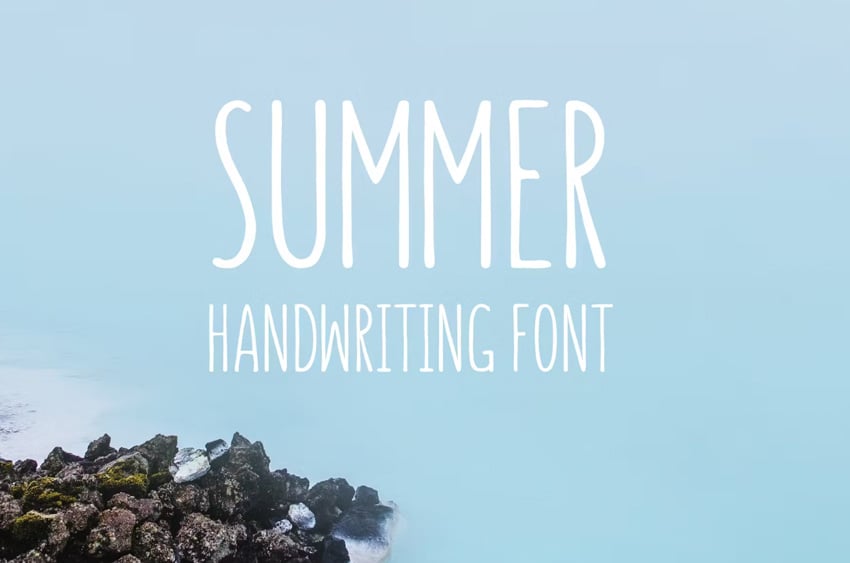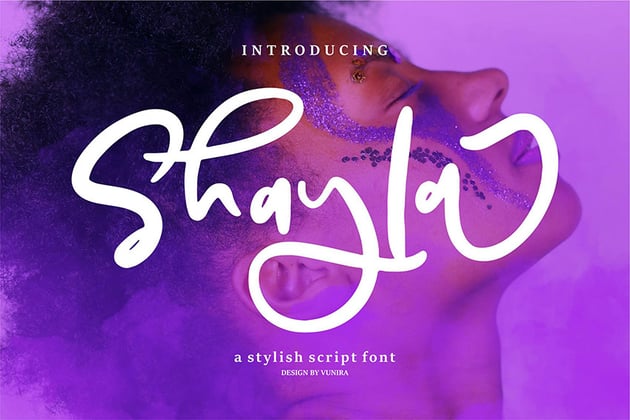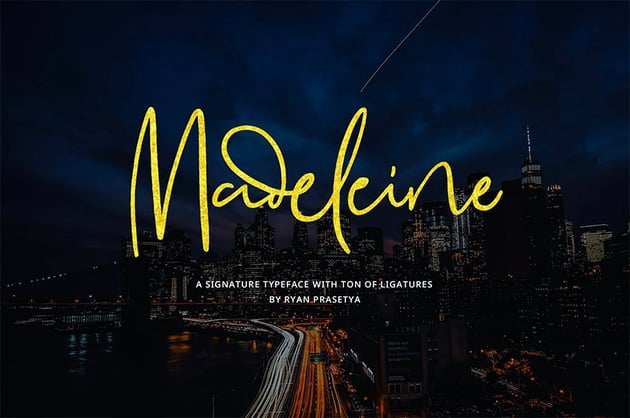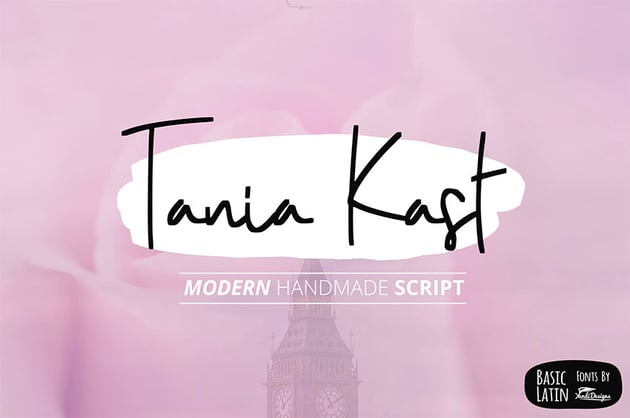
15 Best Handwriting Fonts (Fonts That Look Like Handwriting)
Looking for the best handwriting font for your next design project? This collection is sure to inspire you. Download all kinds of different fonts for handwriting today.
15 Fonts That Look Handwriting to Download Now
1. Polkawars Hand Writing Sans (OTF)
Polkawars is a fresh handwriting script font that likes to keep it casual. If you're wondering how Jasmine in cursive looks, try it with this one. The lettering has a carefree air about it, yet it's neat enough to be read by all. This handwritten typeface features a full set of glyphs, including symbols and alternates.
This font is a great choice for:
- Fonts that look like handwriting can be perfect for evoking a personal, friendly feeling in your designs.
- Fonts that look handwritten can also work well for titles or logos, especially if you want to make an association with something organic or handmade—or if you want to make a personal connection.
- This font is particularly strong at larger sizes as it's rather decorative. When used as display type, it could be a creative way to command attention.
Keep an eye out for:
- This font could scale well, but may not be the best handwriting font for long passages of text, like body copy. If you have a lot of text, consider pairing this font with a neutral supplement.
- That said, if you want to pair this font with another font, make sure it doesn't compete. Something simple could be a strong complement.
2. Shayla | A Stylish Script Font (OTF, TTF)
If you're looking for the best handwriting fonts for your marketing project, check out Shayla. It's a versatile handwritten script that can fit on shirts, flyers, and a whole lot more. The messy handwriting font also works on PC and Mac computers, so you won't have to worry about compatibility.
This font is a great choice for:
- Different handwriting fonts can convey different emotions—and this one is bouncy, fun, and full of energy. It's a great choice if you're looking to command attention.
- Try this font for logo design, titles, headlines, and other points of emphasis in your design. It would be great paired with other graphical elements.
Keep an eye out for:
- It would likely be strong to use this font for key copy, like names or phrases. Too much copy could be overwhelming due to the decorative nature of this type.
- Notice how well this font pairs with a clean, simple serif font, in the example above. Consider a strong, supplemental pair like this one, if you need a secondary font.
3. Heartland (OTF, TTF)
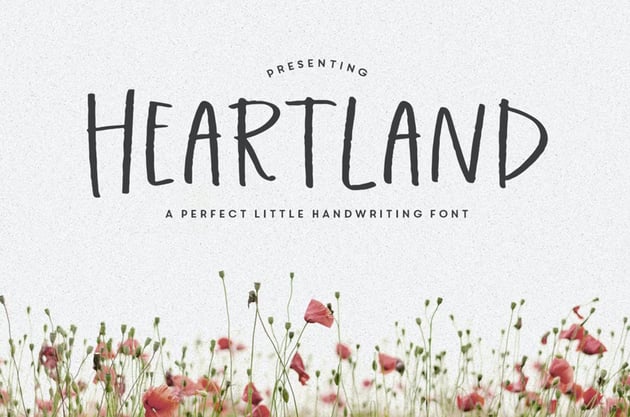
But maybe you prefer different fonts for handwriting. Relaxed, easy handwriting fonts like this one have such a fun, casual vibe to them. This font that looks like handwriting could easily fit in on handmade goods or even a friendly invitation.
This font is a great choice for:
- Fonts like handwriting lettering can be an excellent way to create an organic, personal feeling. It looks as if someone wrote this by hand—our eyes catch that and make that association.
- Imagine this font that looks like handwriting on the front of a cookbook. It could evoke a personal connection with the author because it feels quite human.
- This lettering is rather clean and consistent, so it could work well at both larger and smaller sizes.
Keep an eye out for:
- While this font could scale down well, it still might not have the strongest readability as body copy. If you have a lot of text, you may want to consider a secondary, complementary font.
- Remember, the best handwriting fonts communicate in a way that resonates with your project. This typeface might not work for something like legal branding because of its informal nature.
4. Tremors Handwriting (TTF)
A list of the best handwriting fonts online wouldn't be complete without Tremors. The messy handwriting font has a unique style to the lettering. Each letter looks as if it was hastily thrown on the page, yet it still carries some elegance. Try this handwriting font on clothing, book covers, and other creative projects.
This font is a great choice for:
- This is a striking, energetic font. Fonts that look handwritten and lean into the look of a signature can be dressed up for elegant situations. Imagine this one in a gold foil, for example.
- Again, different handwriting fonts communicate in different ways. This one would be right at home on a classy clothing brand or for a restaurant, but might feel odd for a casual event like a birthday party.
- This is a decorative display font, so it's typically a great choice for points of emphasis in your design.